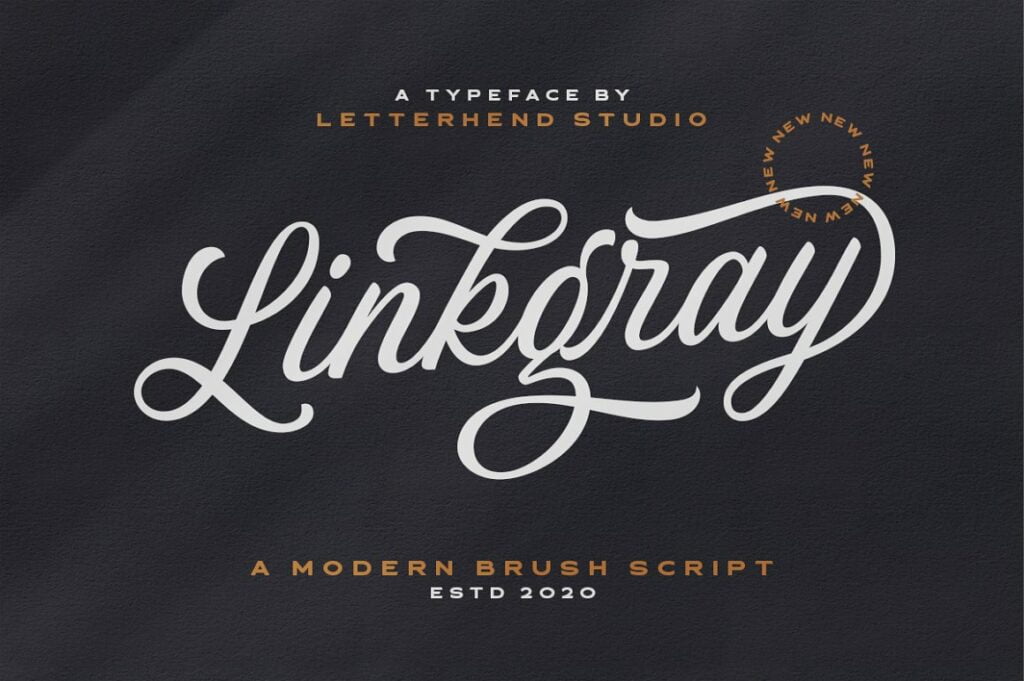
Linkgray Font
Please welcome our newest script typeface, Linkgray Script, a beautiful script typeface with unique alternates and swashes. This font perfectly made to be applied especially in logo, and the other various formal forms such as invitations, labels, logos, magazines, books, greeting / wedding cards, packaging, fashion, make up, stationery, novels, labels or any type of advertising purpose.
Linkgray Script Typeface